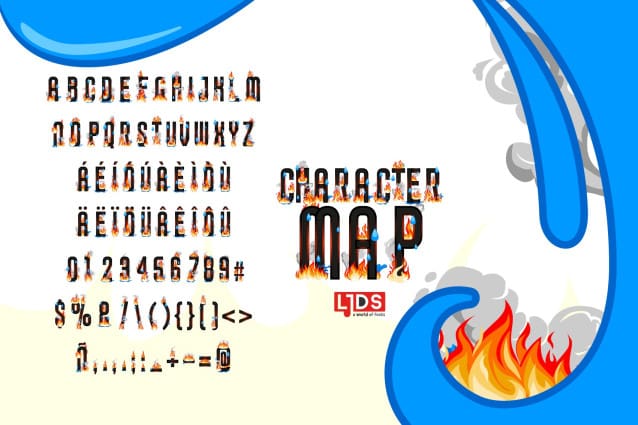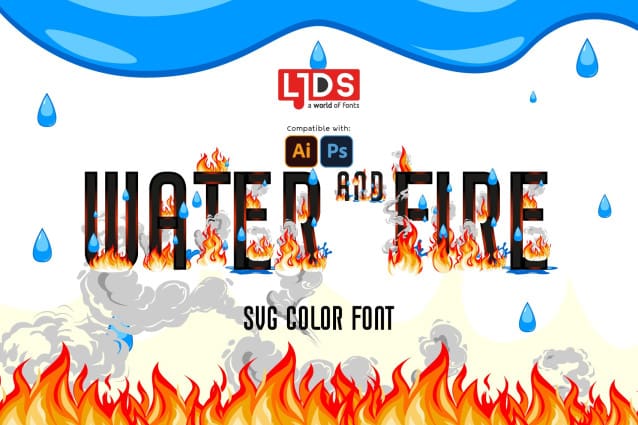
Water And Fire Font
Water And Fire Font, is inspired by the previous version Water and fames (by Zulema Ganem) we bring a modified version of Luis Jaramillo combined with the alphabet of Matth Condensed, we bring an alternate version with color SVG format compatible with the Adobe suite.